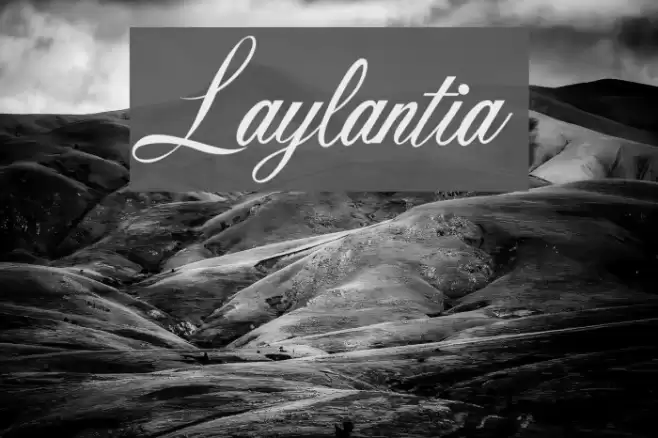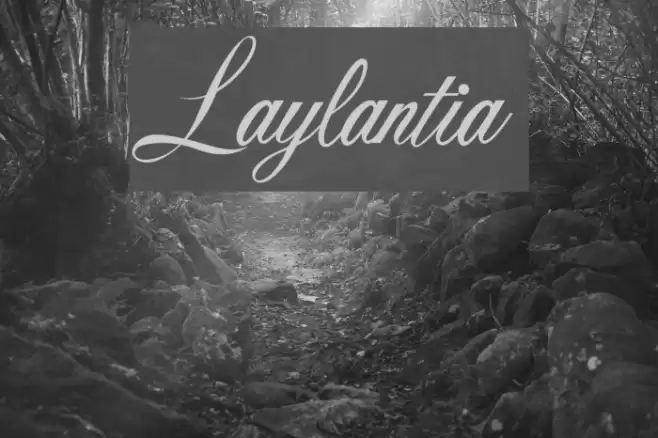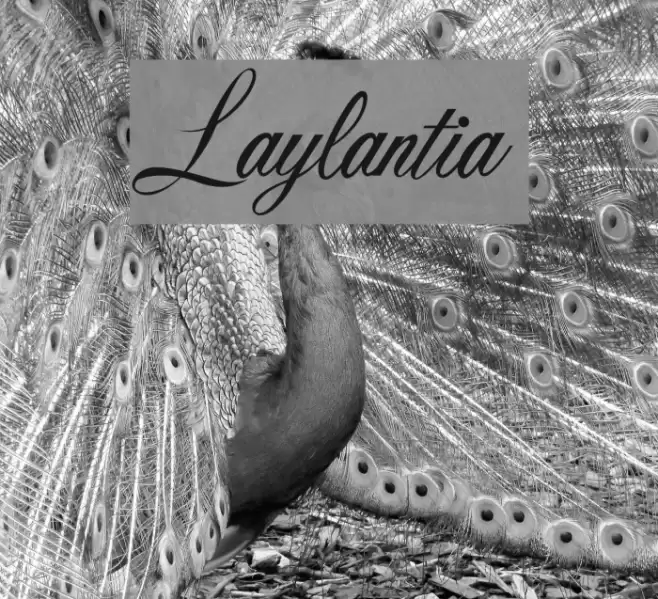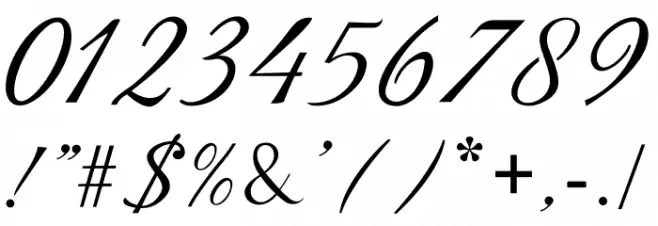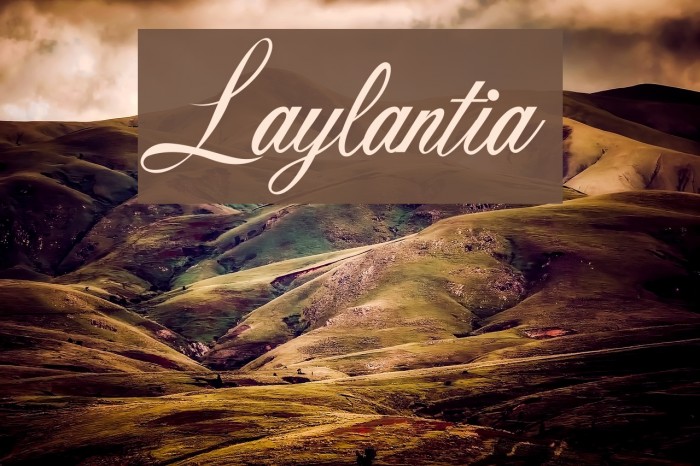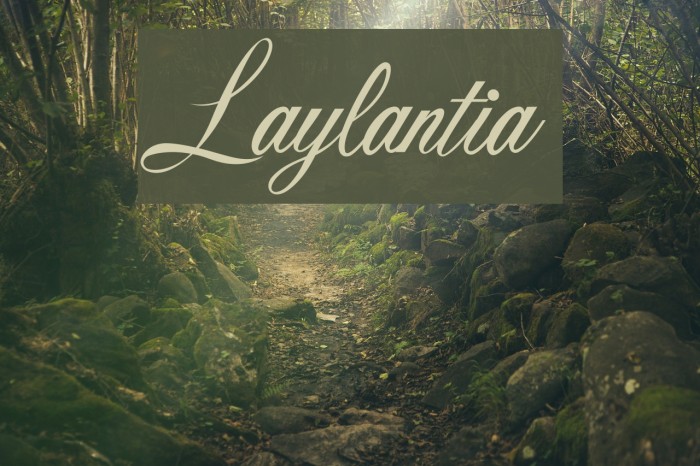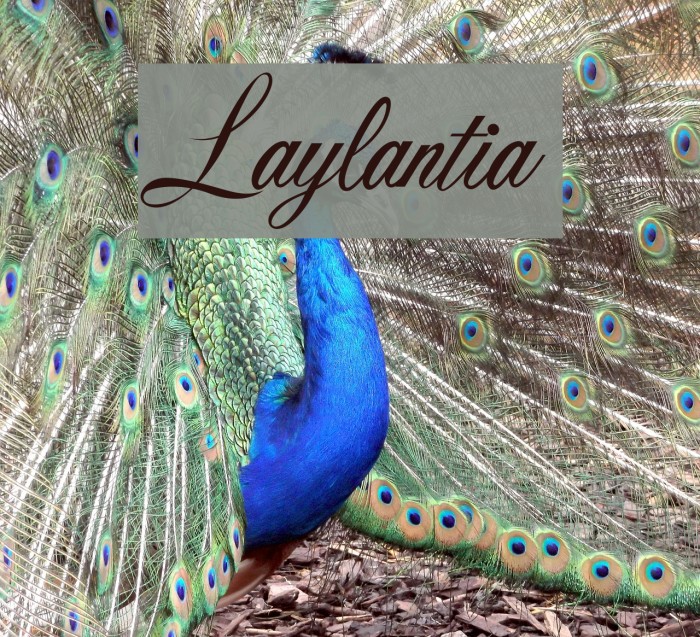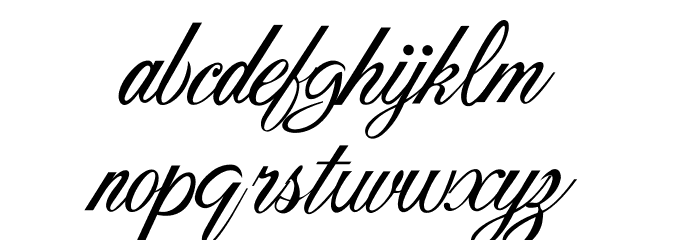
Laylantia Font
Laylantia Description
This font is an elegant script typeface that features flowing, cursive letterforms with a classic and sophisticated appearance. The uppercase letters are adorned with intricate loops and swashes, giving them a decorative flair. The lowercase letters maintain a smooth, connected style that enhances readability while retaining an artistic touch. The numerals are designed with a similar elegance, featuring slight slants and curves that complement the overall script style. Special characters are crafted with attention to detail, ensuring they blend seamlessly with the rest of the typeface. This font exudes a sense of grace and refinement, making it suitable for formal and decorative applications.
An elegant script typeface with flowing, cursive letterforms and decorative swashes from Uncategorized fonts.
- Proposed Projects: Ideal for wedding invitations, elegant branding, formal event programs, and decorative signage.
- Overall Style: Classic
- Use Case: Logos, Invitations, Decorative text